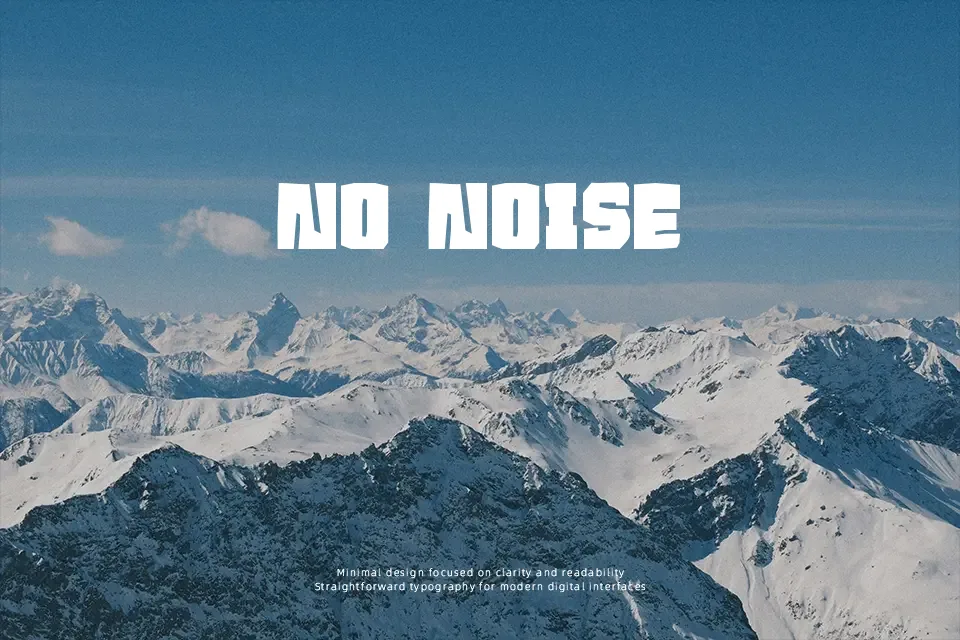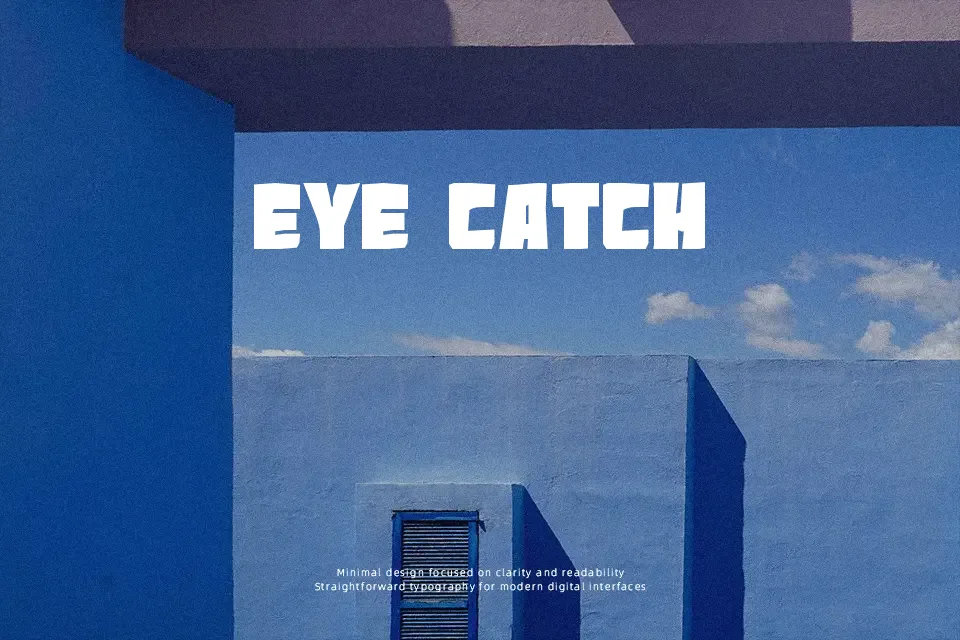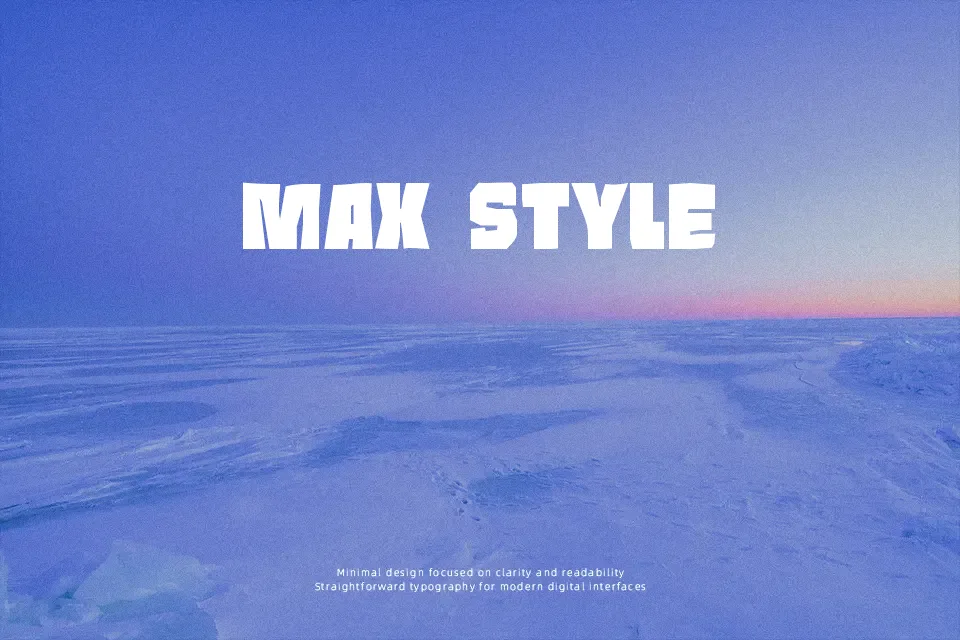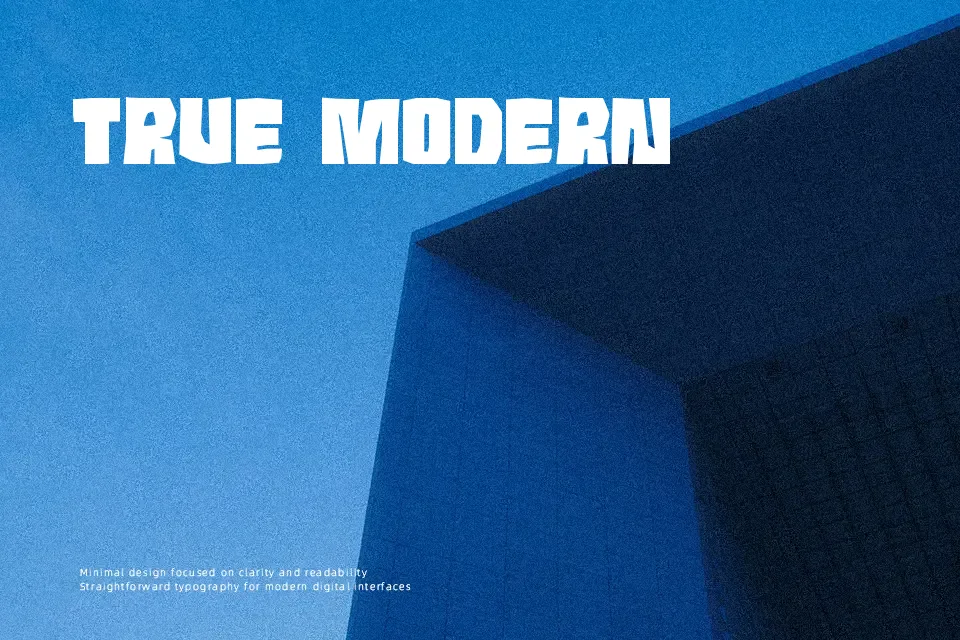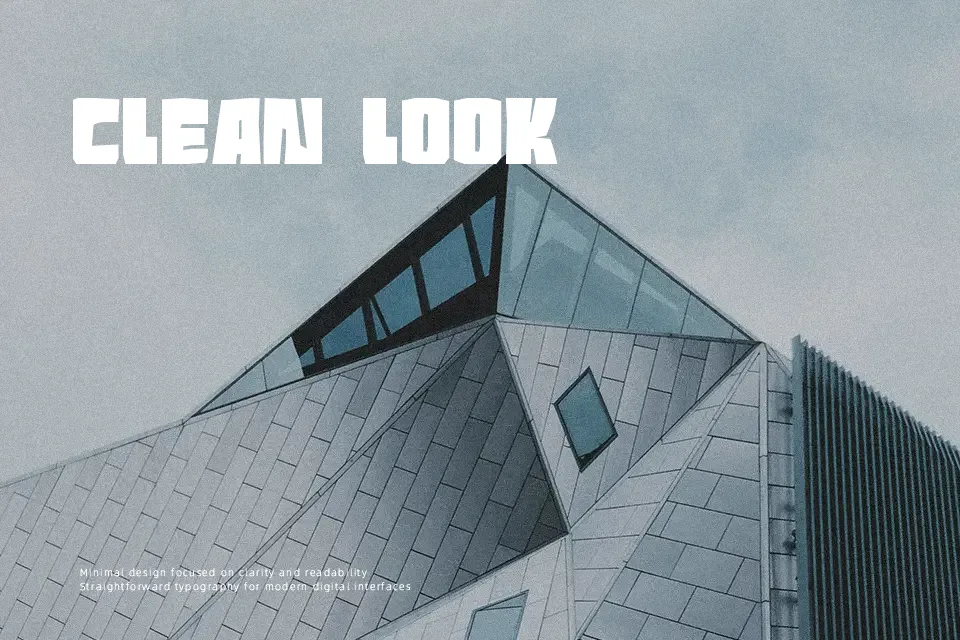
Roaring Jungle Font
Designed by Riyadh Rahman
The structural foundation of Roaring Jungle Font relies on heavy, stone-inspired block lettering combined with slightly softened, curved edges. Massive stroke weights dominate the design, pushing the character proportions into a distinctly robust and solid presence. Spacing is deliberately tight, allowing the heavy letterforms to interlock closely when forming large, impactful words. The dense structure ensures the letterforms maintain strong visibility in large display text, making the typeface highly effective for retro poster headlines, arcade game branding, and adventurous product packaging. Dense forms reduce comfort during extended reading, meaning the design struggles in long paragraphs or complex editorial settings. The restricted negative space ultimately makes smaller text sizes difficult to decipher.
Best For: retro poster headlines, arcade game branding, adventurous product packaging, children’s book titles
Not Ideal For: long paragraph text, complex editorial layouts, small interface labels, continuous body copy
Perfect for branding, gaming, and kids, with a bold and cartoon style.